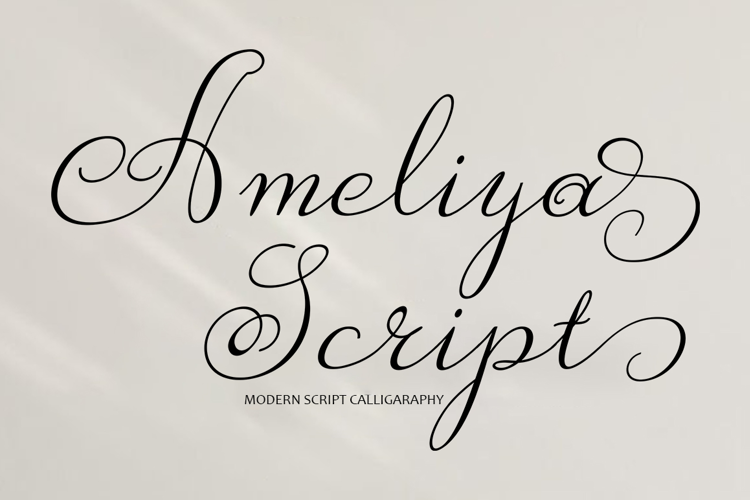
Ameliya script
Ameliya script - a new, fresh, funny, interesting, cute calligraphy font with a heart that can be connected front and back. You will have an amazing idea when you make greeting cards, branding materials, business cards, quotes, posters, and more!